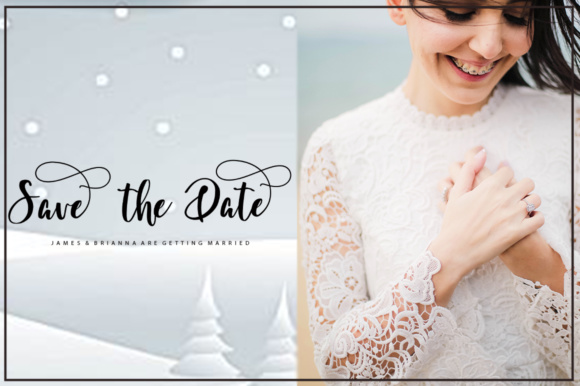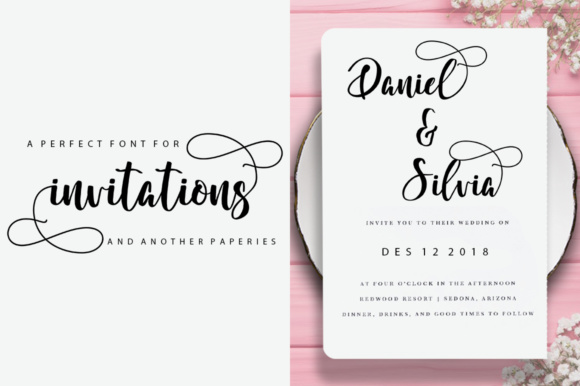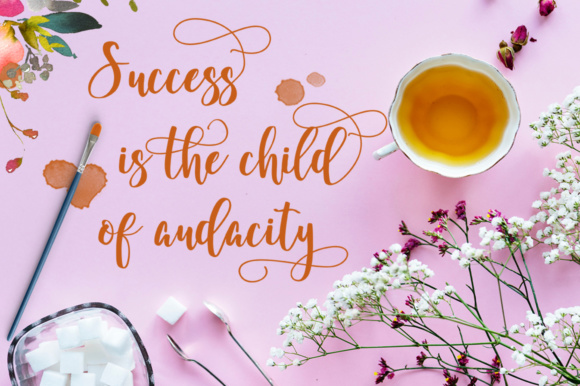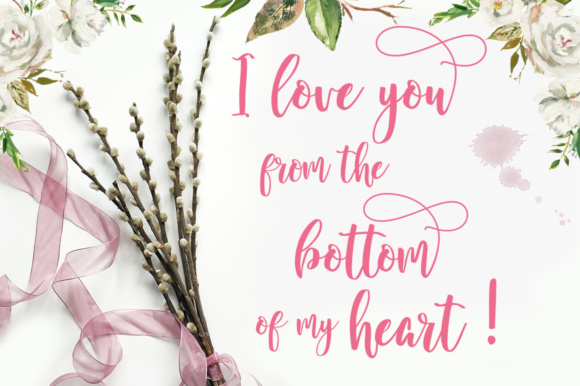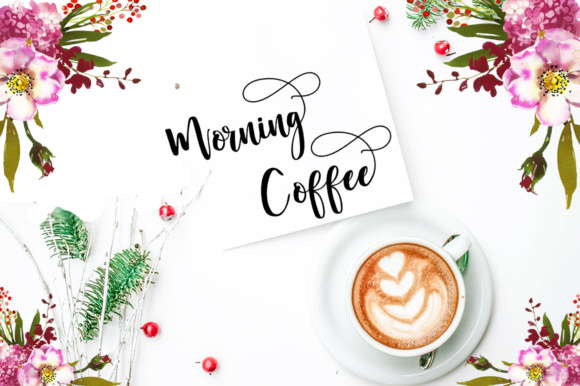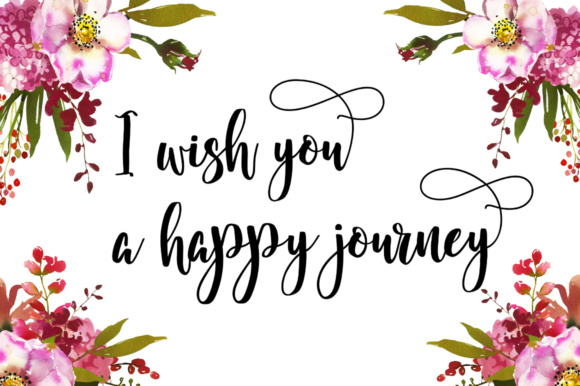
The Perfect Font for Your Most Cherished Moments
Have you ever sat with a blank piece of paper, a pen in hand, and a flood of creative ideas bursting in your mind? That’s exactly what happened to me when I stumbled upon the Best Dreams Font. Its unique, whimsical style seemed to capture the essence of those fleeting moments of inspiration.
Best Dreams Font is a modern script font that’s as beautiful as it is versatile. Its irregular baseline and trendy, feminine style make it the perfect choice for a variety of applications, from wedding invitations and thank you cards to quotes and logos. Whether you’re a designer looking to add a touch of elegance to your work or a crafty enthusiast searching for the perfect font to match your hand-lettering skills, the Best Dreams Font is an invaluable addition to your toolkit.
Key Features of “Best Dreams Font”
- Unique Characteristics: The “Best Dreams Font” features a unique blend of modern and elegant typography, with intricate details and subtle flourishes that evoke a sense of sophistication and luxury.
Designer Review: Best Dreams Font
Overall, I’m quite impressed with the Best Dreams Font. It has a certain je ne sais quoi that makes it stand out from the crowd. Here’s what works well: ✨
- Unique aesthetic**: The font has a distinctive, dreamy quality that’s perfect for creative projects or anything that needs a touch of whimsy.
- Excellent legibility**: Despite its unusual shape, the font is surprisingly easy to read, making it a great choice for body text or headings.
- Highly customizable**: The font comes with a wide range of weights and styles, allowing you to fine-tune the look to suit your project’s needs.
- Limited language support**: The font may not include all the characters you need for certain languages, which could be a problem for international projects.
- May not work well in small sizes**: While the font is generally easy to read, it may become pixelated or difficult to read when used in very small sizes.
Overall, I’d give the Best Dreams Font 4 out of 5 stars. It’s a fantastic choice for creative projects, but may not be the best fit for every type of design. With a little experimentation, I think you’ll find it’s a great addition to your design toolkit.
Tips for Getting the Most Out of Best Dreams Font
For optimal results, pair Best Dreams Font with a clean and minimalist design aesthetic. Avoid using too many bold or italic styles, as this can make the text difficult to read. Experiment with different font sizes and colors to create visual interest.
Best Dreams Font is ideal for use in creative projects, such as:
- Infographics and data visualizations
- Personalized stationery and invitations
Great Vibes Font is a beautiful, elegant script font that is perfect for creating a romantic and whimsical atmosphere. It’s ideal for use in wedding invitations, posters, and other design projects where a touch of elegance is needed.
Compared to Best Dreams Font, Great Vibes Font has a more refined and sophisticated feel, making it a great choice for designers who want to add a touch of luxury to their designs.
Q: What are the recommended font sizes and line heights for optimal readability?
For optimal readability, we recommend using font sizes between 12px and 24px, with corresponding line heights of 1.2x to 1.5x the font size. This ensures clear text legibility and visual balance in your designs.